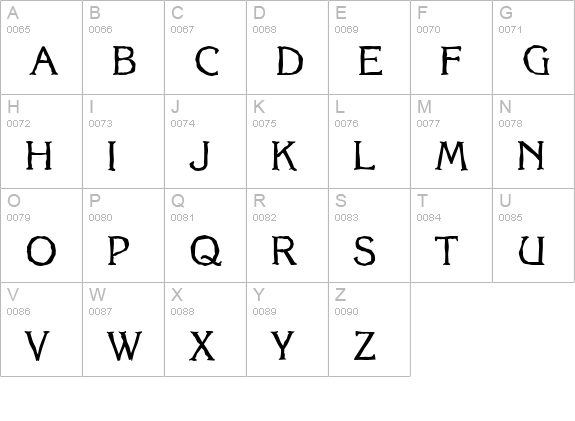
KorinthAntique-Regular Font Details
KorinthAntique-Regular is the standard, neutral variant in the KorinthAntique typeface family \xE2\x80\x94 well suited to general body text, paragraphs, and standard typographic work.
KorinthAntique-Regular is a classic and elegant font that exudes sophistication and timelessness. Its timeless serifs and balanced proportions make it perfect for a wide range of design projects, from invitations to branding materials. The font strikes the perfect balance between traditional and modern, making it versatile and easy to read in various applications. What sets KorinthAntique-Regular apart is not just its timeless design, but also the fact that it is available for free download at FontsMarket.com. This means that you can add this beautiful font to your collection without having to worry about any additional costs. Whether you are a designer looking to expand your font library or a business owner in need of a refined typeface for your marketing materials, KorinthAntique-Regular is a fantastic choice that won't break the bank. Download KorinthAntique-Regular for free today at FontsMarket.com and elevate your designs with this stunning and versatile font.